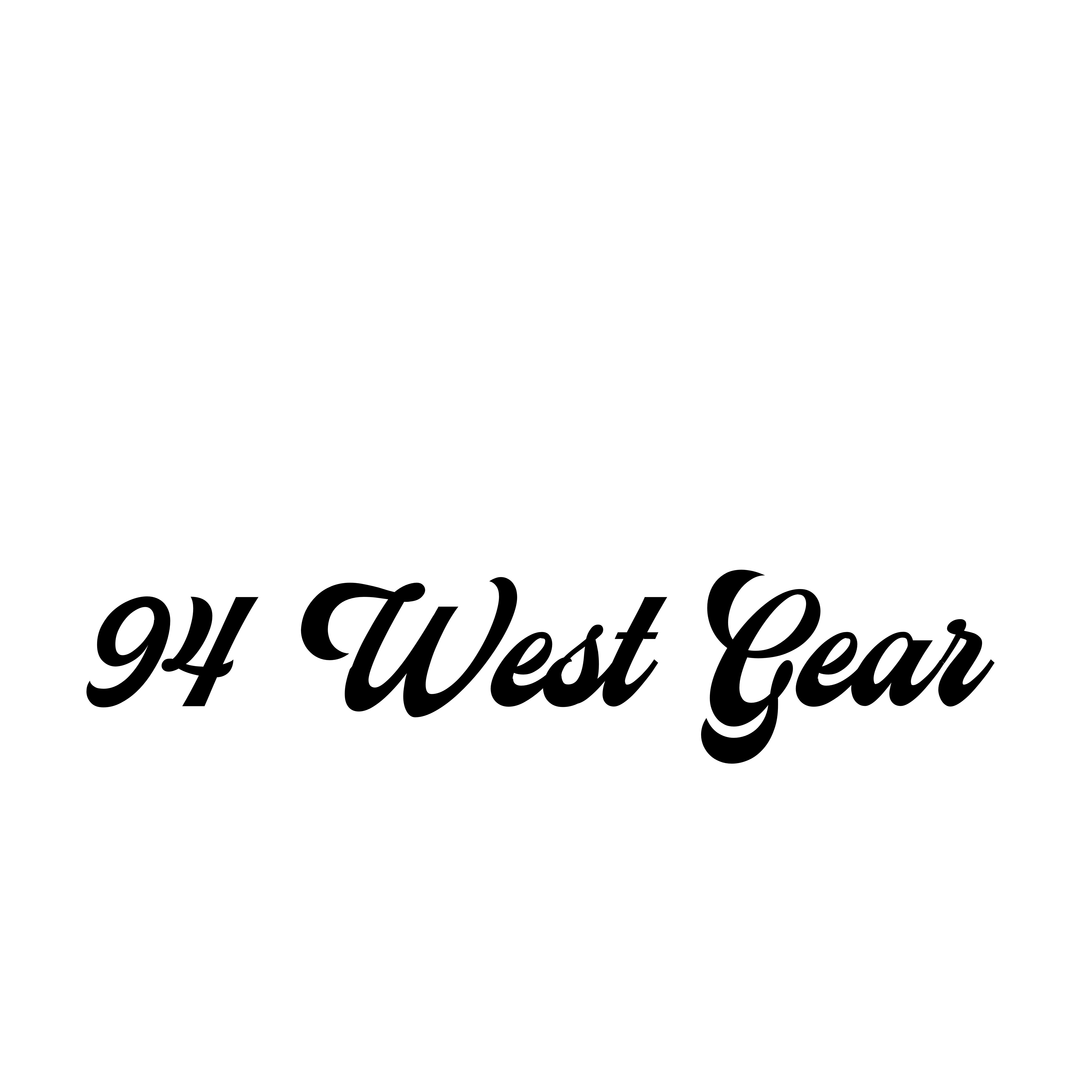
Streetball | Vintage font
Hi, Streetball font inspired by baseball sports comes from the modern and vintage touch in it. This handmade font is made with several precision layers with a total of 511 glyphs. Streetball is very suitable for use in various media such as; packaging, logo, label, poster, shirt design, quote of wisdom, handlettering, typography and many other media.
Features: Hundreds of Alternates, Stylistic Sets, Ligatures, PUA, Swashes & Multingual Characters.